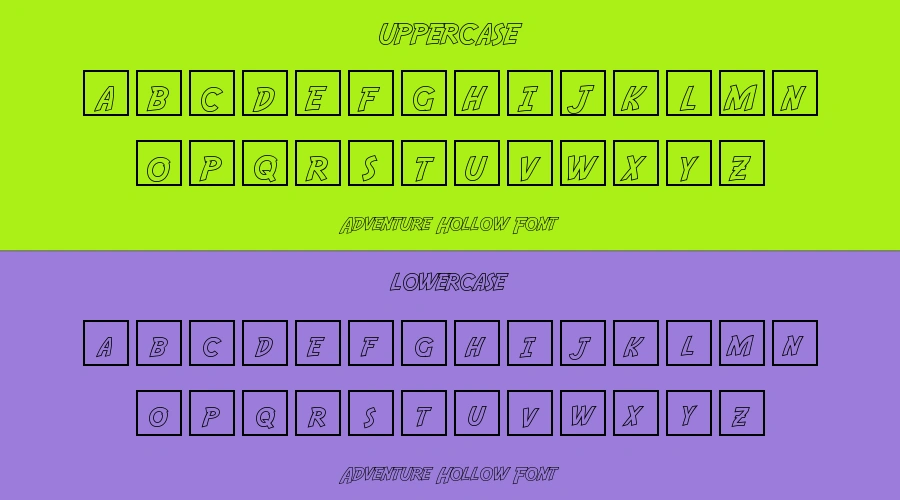
About Adventure Hollow Font
Adventure Hollow Font stands out for its distinctive combination of artistic freedom and traditional values. Ideal for advertising headers, it provides the refinement and brand alignment that professional projects demand. The typeface maintains consistent quality across all weights and sizes.
Key features include refined bold expressions and practical authentic details, enhancing typographic expression. In headlines applications, Adventure Hollow Font demonstrates exceptional table alignment. The x-height proportion and artistic merit contribute to its distinctive character and professional appeal.